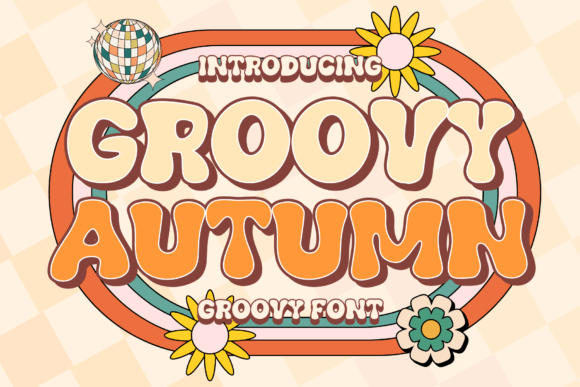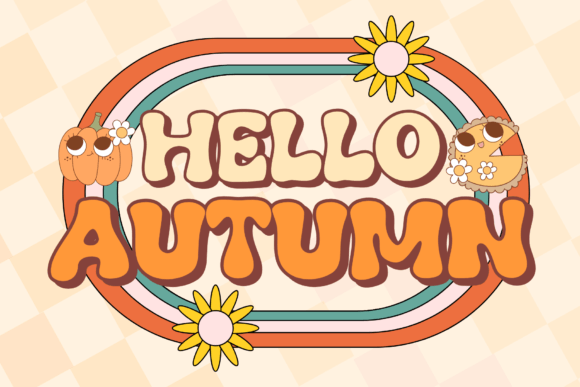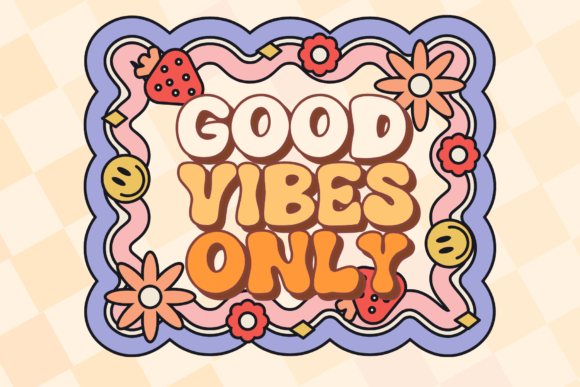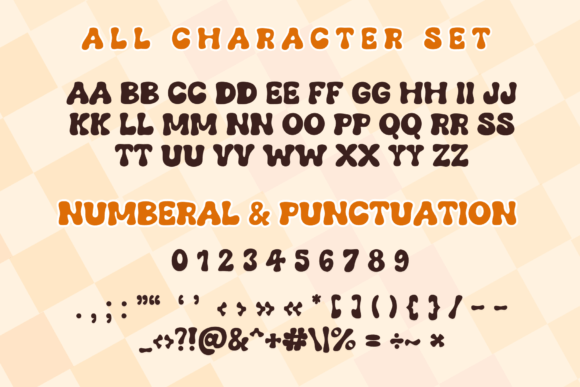
Groovy Autumn Font
About the Groovy Autumn Font
Crafted with precision, the Groovy Autumn Font is ready to bring your ideas to life. Groovy Autumn is a stylish retro groovy font. Ideal for all your hippie-inspired designs, it embodies playfulness and authenticity and is the perfect choice for all your favorite projects, or even for blog posts, logos, branding, ads, invitations, greeting cards, planners, photo albums, decorations, and much more. Add it to any of your designs, and enjoy the results!
Groovy Autumn’s playful, retro style shines in headlines, short text blocks, logos, and branding for businesses with a vintage or bohemian aesthetic. It works well for posters, invitations, and packaging where its unique character can make a statement. However, its distinctive letterforms are less suitable for body text or UI elements requiring high readability.
Consider pairing Groovy Autumn with a clean sans-serif like Open Sans for a balanced contrast, or a more geometric sans-serif like Futura for a modern twist. For a warmer feel, a classic serif such as Garamond can create a sophisticated juxtaposition. Avoid pairing it with other highly decorative fonts, as this will overwhelm the design.
Its overall personality is best described as cheerful and nostalgic, making it ideal for projects that evoke a sense of fun and retro charm.
Groovy Autumn Font Usage Examples
Groovy Autumn Font Example